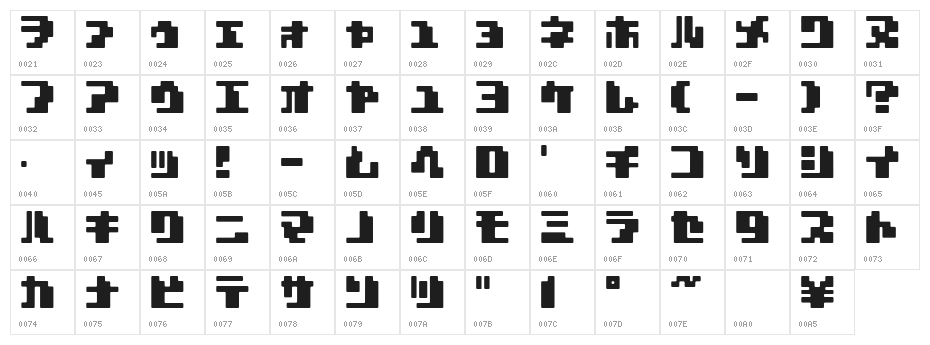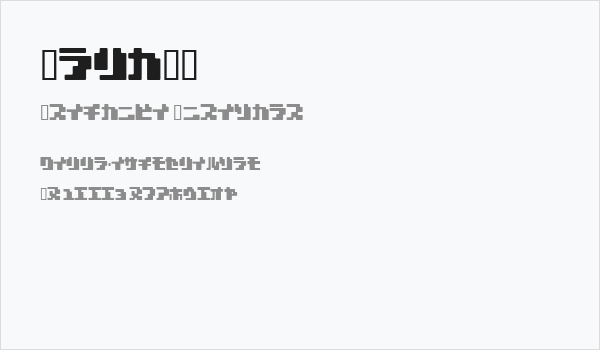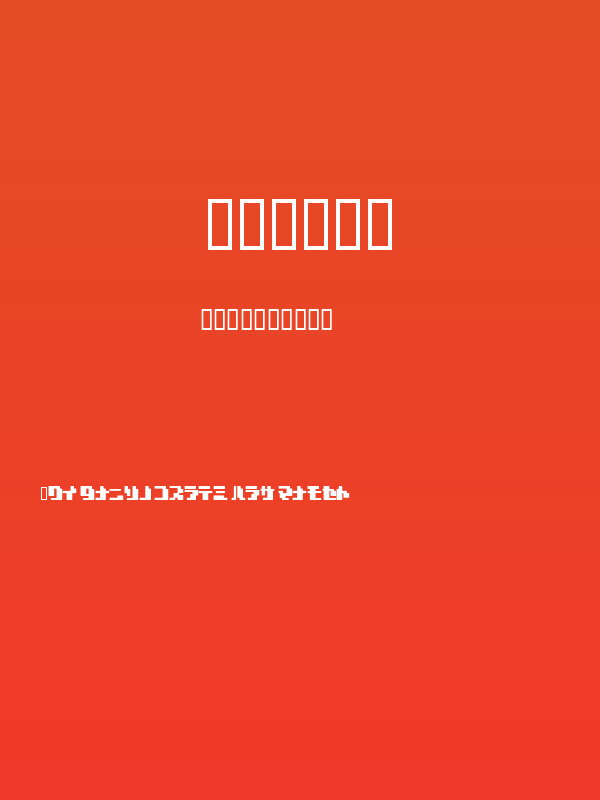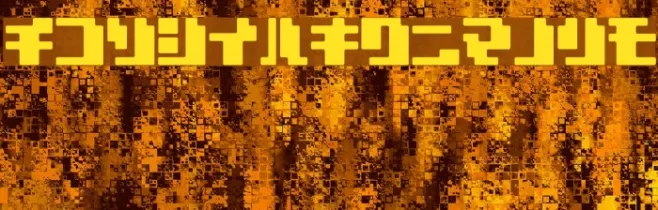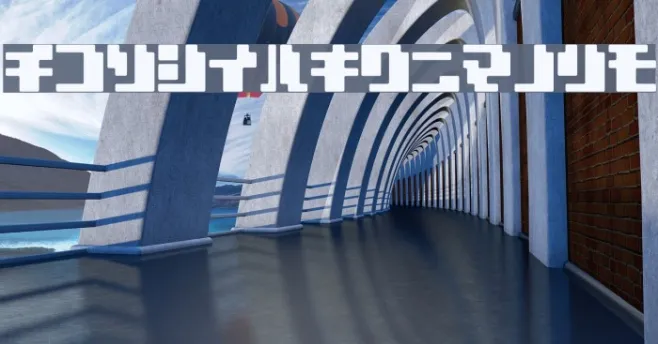
VoltKT Font
VoltKT Description
This font features a bold, geometric design with a strong emphasis on rectangular shapes and sharp edges. The characters are uniformly thick, creating a cohesive and impactful appearance. The uppercase letters are particularly striking, with a blocky, almost industrial feel. The lowercase letters maintain the same geometric style, ensuring consistency across the typeface. Numbers and special characters are designed to match the boldness and geometric nature of the alphabet, making them stand out in any design. The overall look is modern and assertive, ideal for projects that require a strong visual presence.